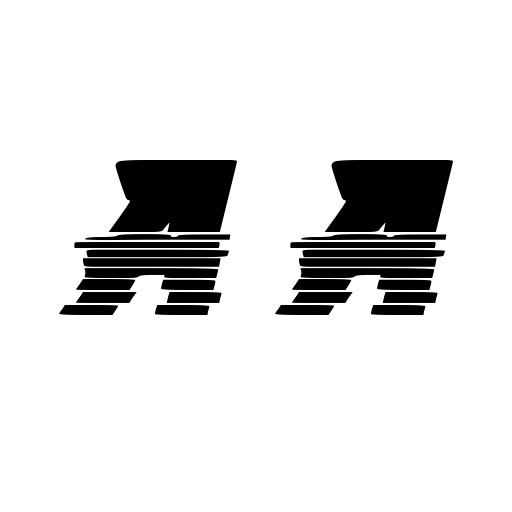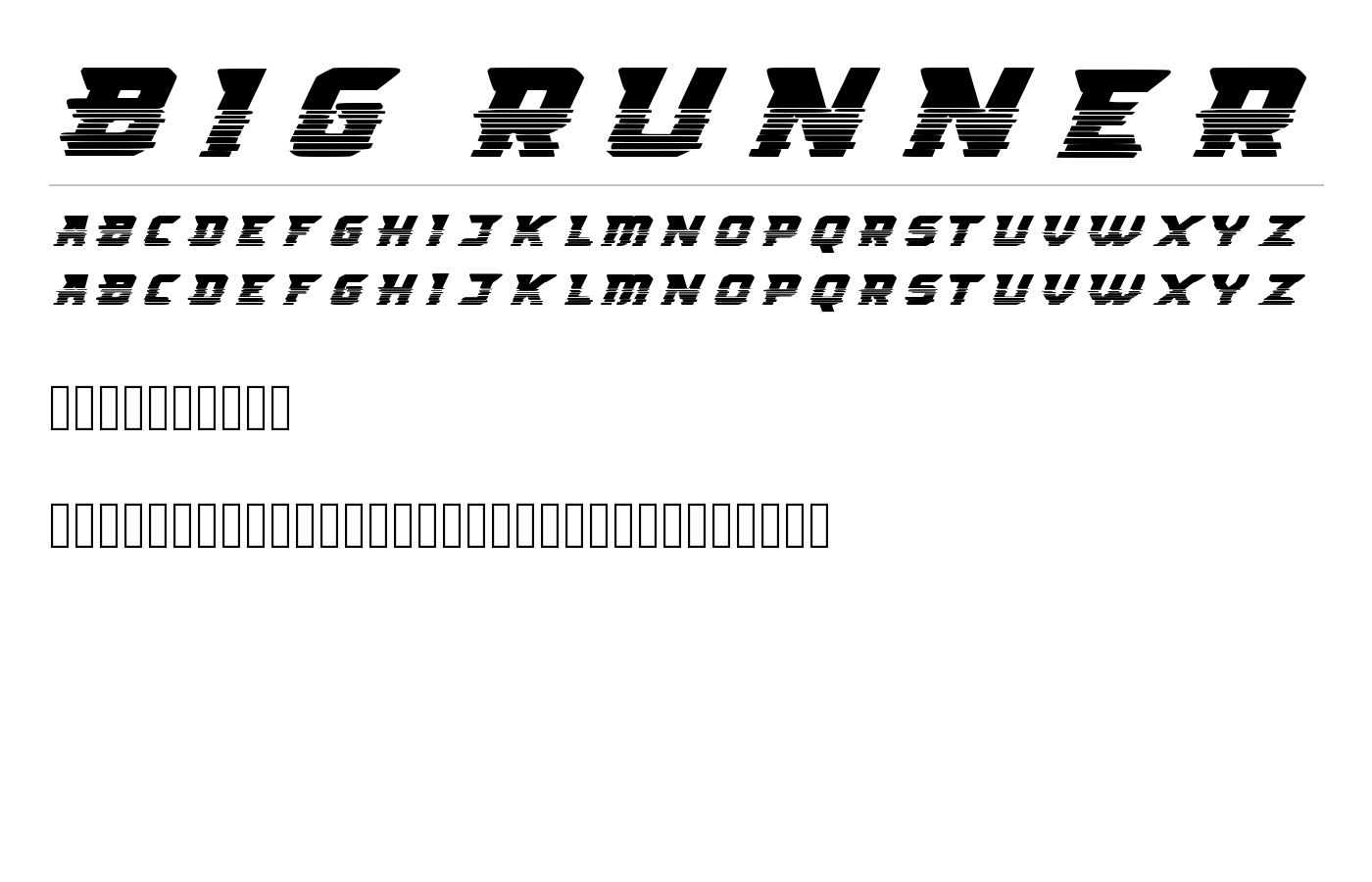
Big Runner Font is a bold, condensed sans serif typeface with a strong sense of motion, created by horizontal striations cutting through the letterforms. Its striking, italicized style and high contrast lines evoke speed and energy, making it perfect for dynamic branding, sports-related designs, or eye-catching headlines that need to convey excitement and momentum.
Big Runner Font